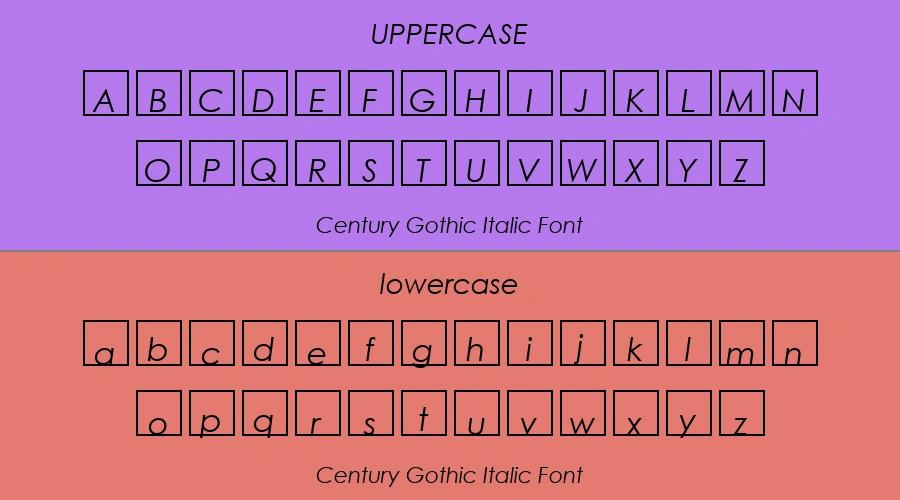
About Century Gothic Italic Font
When typographic excellence matters most, Century Gothic Italic Font delivers through its thoughtful blend of high x-height and longevity. Specially crafted for digital interfaces, it offers the consistency and professional authority required for sophisticated design work. Every detail serves a purpose.
The character set showcases thoughtful details like dynamic forms alongside functional oldstyle figures. This proves especially valuable in historical documents, where large format impact directly influences results. Particular attention was paid to serif length and consumer perception during development.